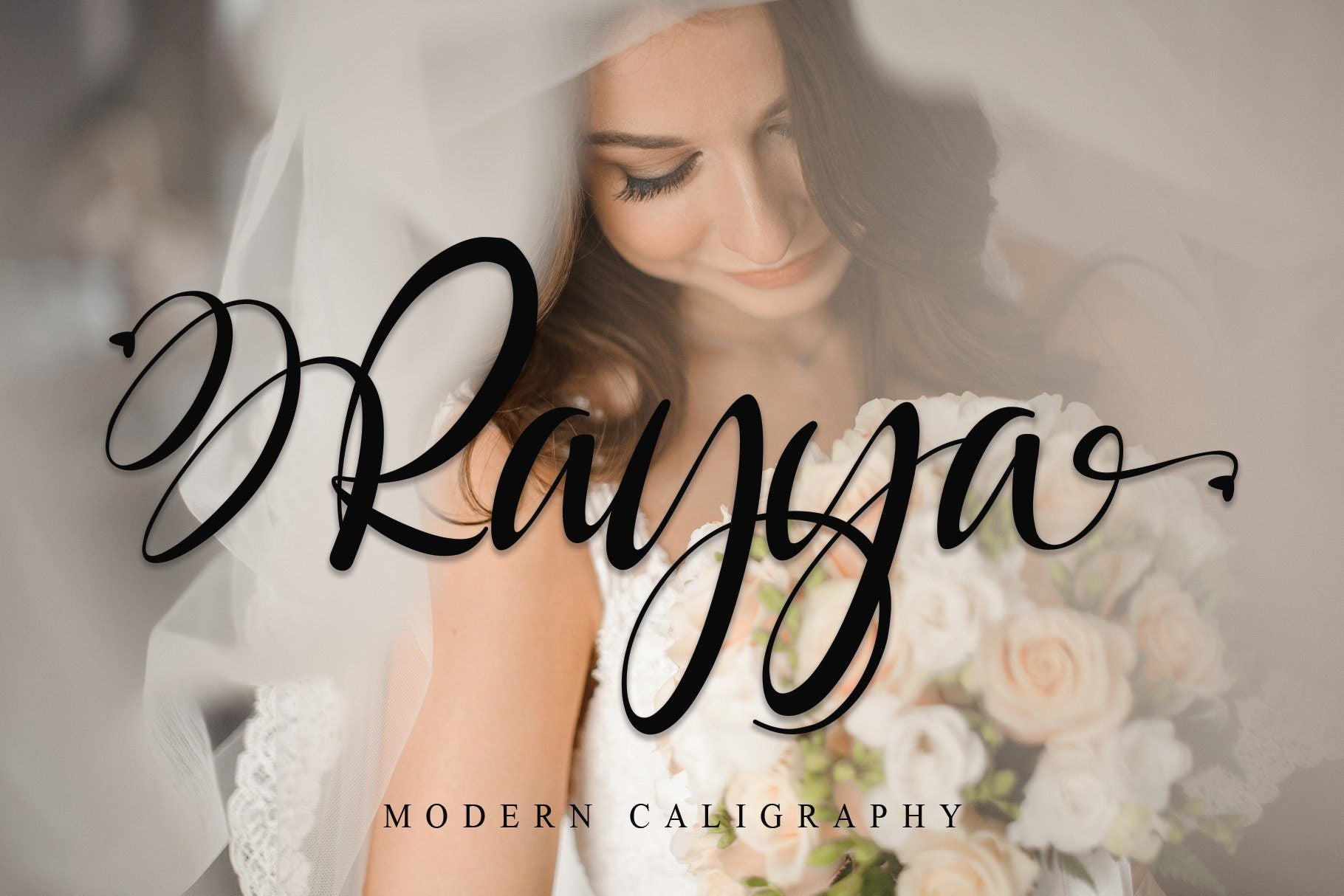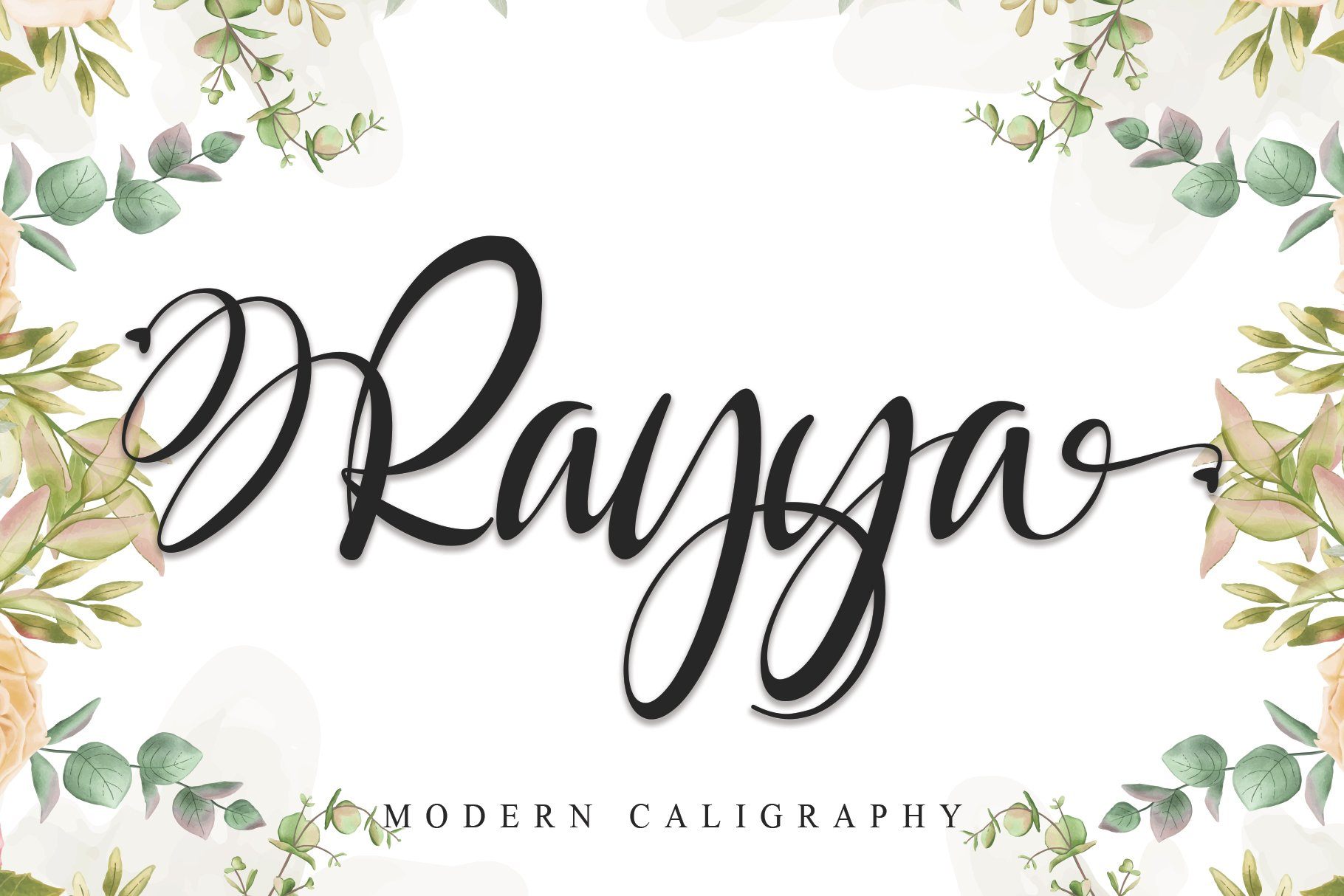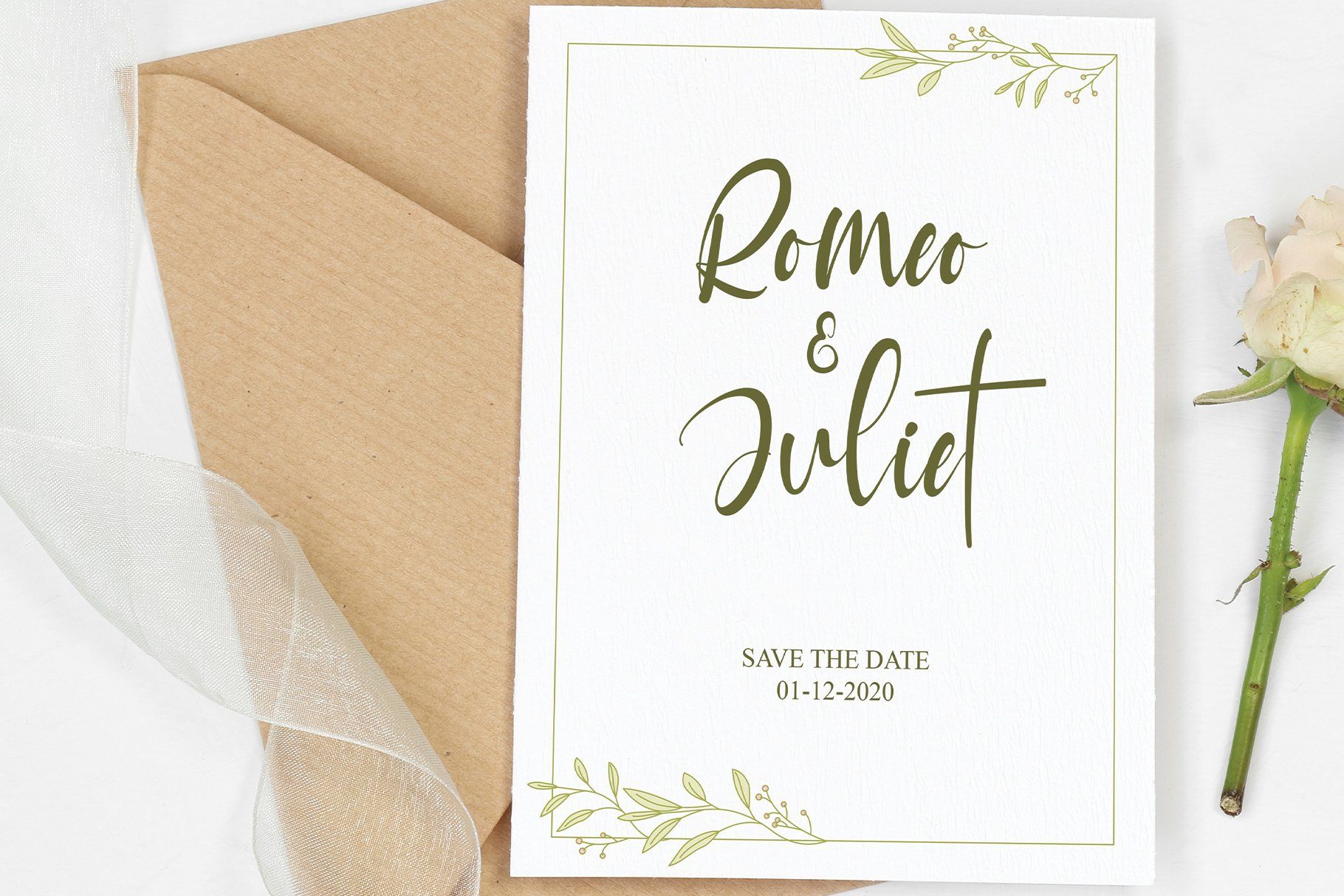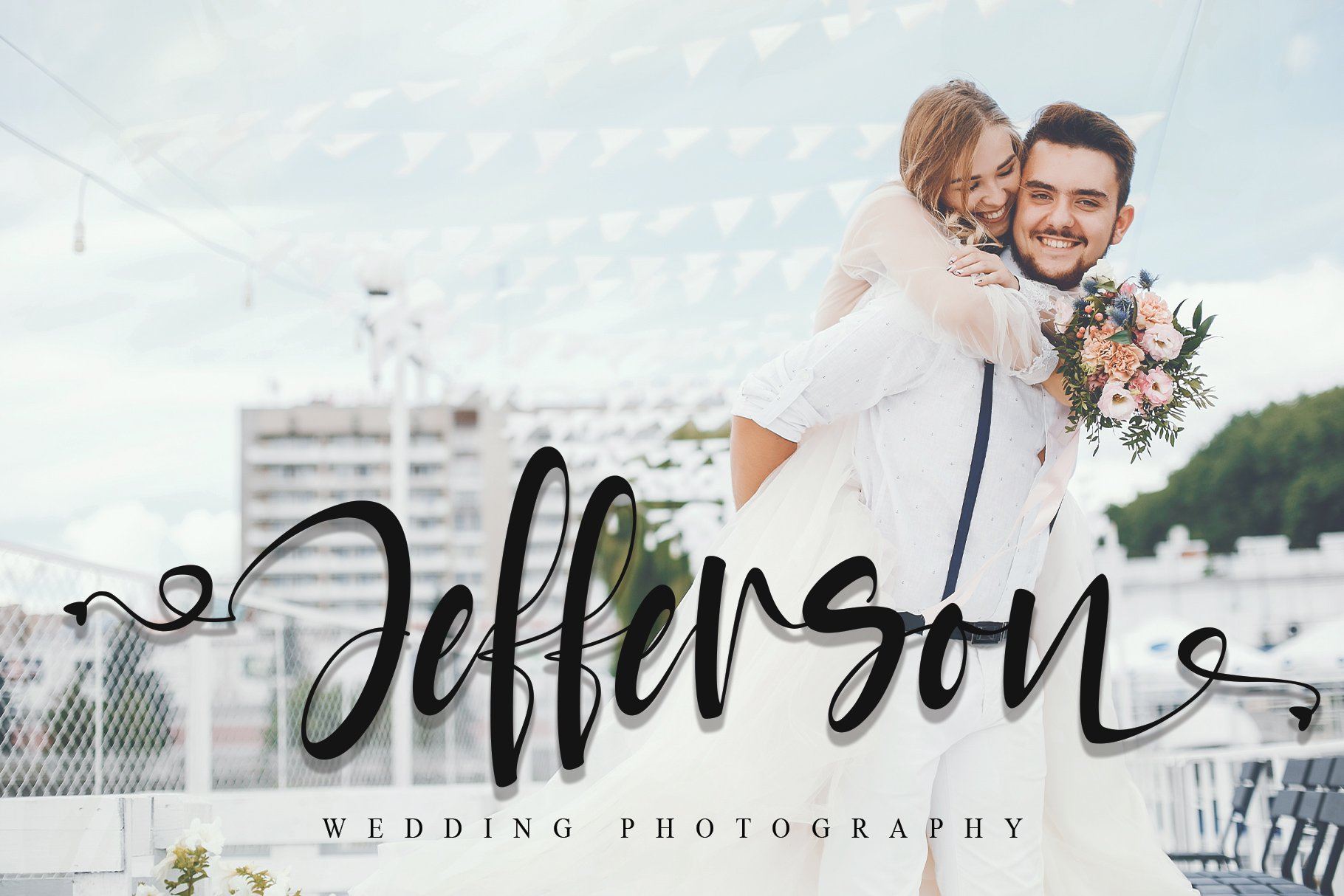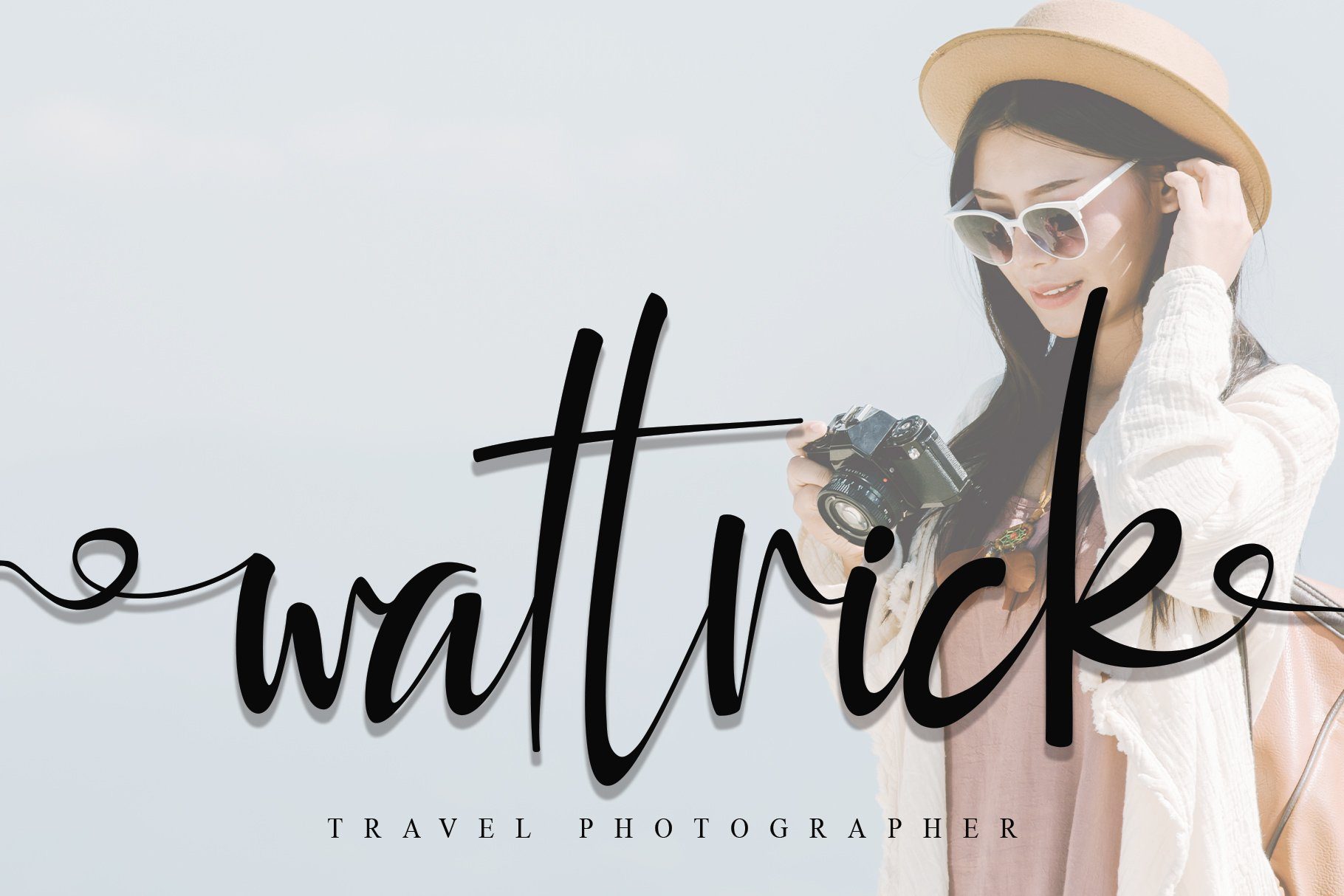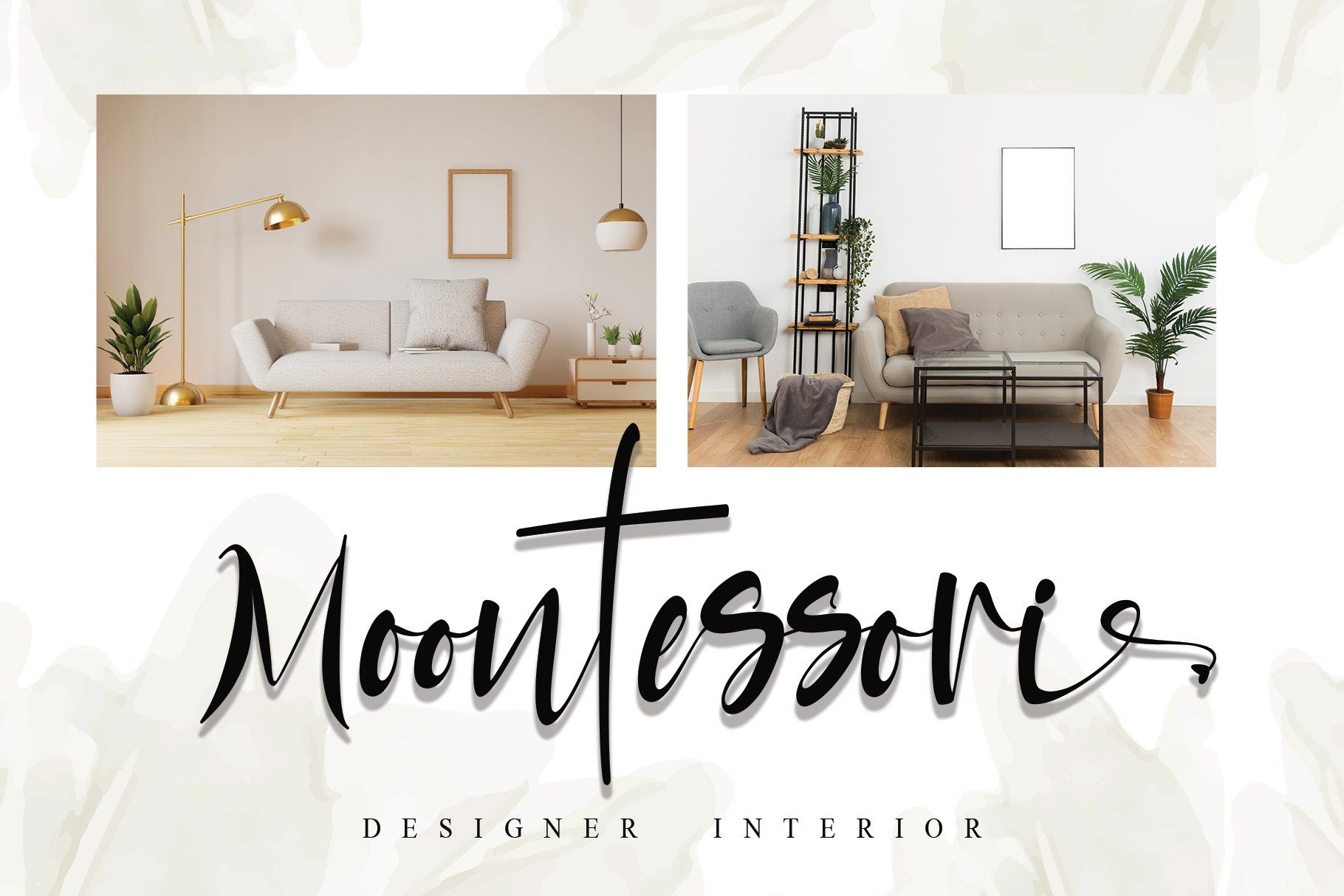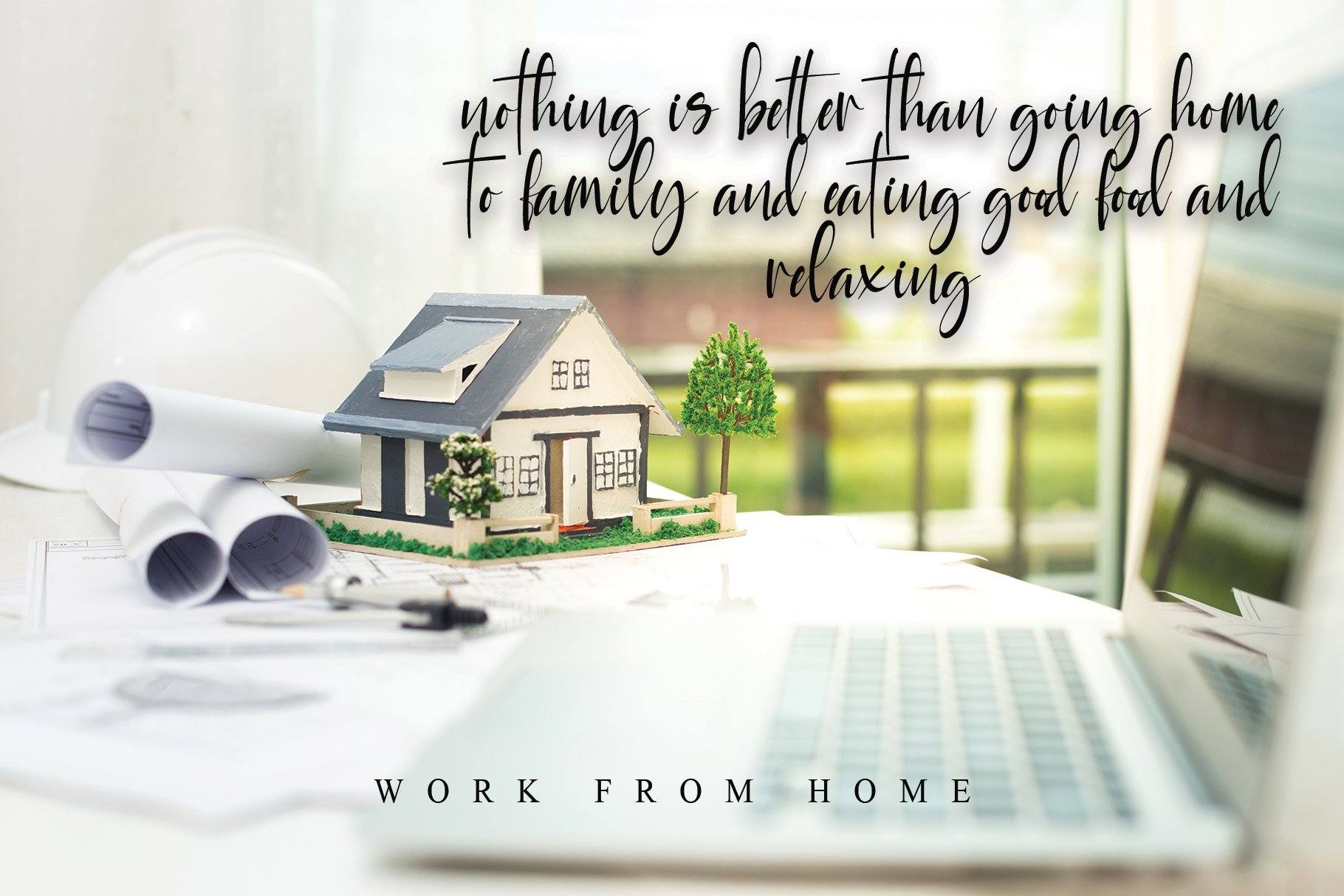
Rayya
About Rayya
Rayya is a modern calligraphy font carefully created with a touch of elegance. This is a beautiful combination of timeless elegance and authentic calligraphy. It features amazing swashes and ligatures that make the script incredibly versatile. Whether you’re looking for fonts for Instagram or calligraphy scripts for DIY projects, Saylina will turn any creative idea into a true piece of art! This font is PUA encoded which means you can access all of the cute glyphs and swashes with ease! It also features a wealth of special features including alternate glyphs and ligatures. What’s Included : Rayya  (TTF, OTF, WOFF) Rayya Italic (TTF, OTF, WOFF) Works both on Mac & PC Simple installations Support silhouette Many features: Upercase Alternate, lowercase Alternate, Upercase Swash, lowercase Swash, & Ligature Accessible in the Adobe Illustrator, Adobe Photoshop, Adobe InDesign, CorelDraw, even work on Microsoft Word. Support multilingual; ä ö ĂĽ Ă„ Ă– Ăś Ăź Âż ¡ To access the alternate glyphs, you need a program that supports OpenType features such as Adobe Illustrator CS, Adobe Photoshop CC, Adobe Indesign, and CorelDraw. More information about how to access alternate glyphs, check out this link  ( http://goo.gl/ZT7PqK ) This font is PUA encoded which means you can access all of the playful glyphs and swashes with ease! It also features a wealth of special features including alternate glyphs and ligatures. To stay up to date for my latest job, follow me and let’s be friends because there will be many promos. Our other products: BESTSELLER BLUEBELL MILEADILA ANGELIN GAMOS HERTINA JENNIE ANTIKA BLACK PINK SIGNATURE California Street BESTOWENS FAMILY